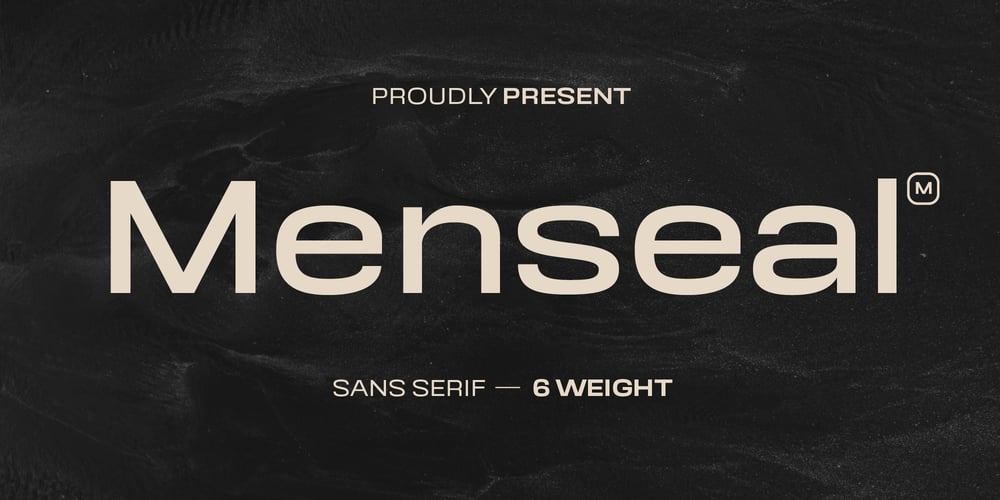
Menseal Font Family was designed by abdul artega and published by Yukita Creative. Menseal contains 6 styles and family package options. The font “Menseal” features a sans-serif design blending futuristic elements with semi-square, wide characters, creating a bold, modern look, perfect for apparel and sportswear. Its sharp lines and angles give it a strong, precise aesthetic. Crafted with geometric precision, each letter aligns with the contemporary era and offers ample space for text placement on Print or Digital Using “Menseal” in designs adds a modern touch, ideal for fashion brands aiming to stand out. Its consistent style ensures clear and effective communication of brand messages to the target audience.